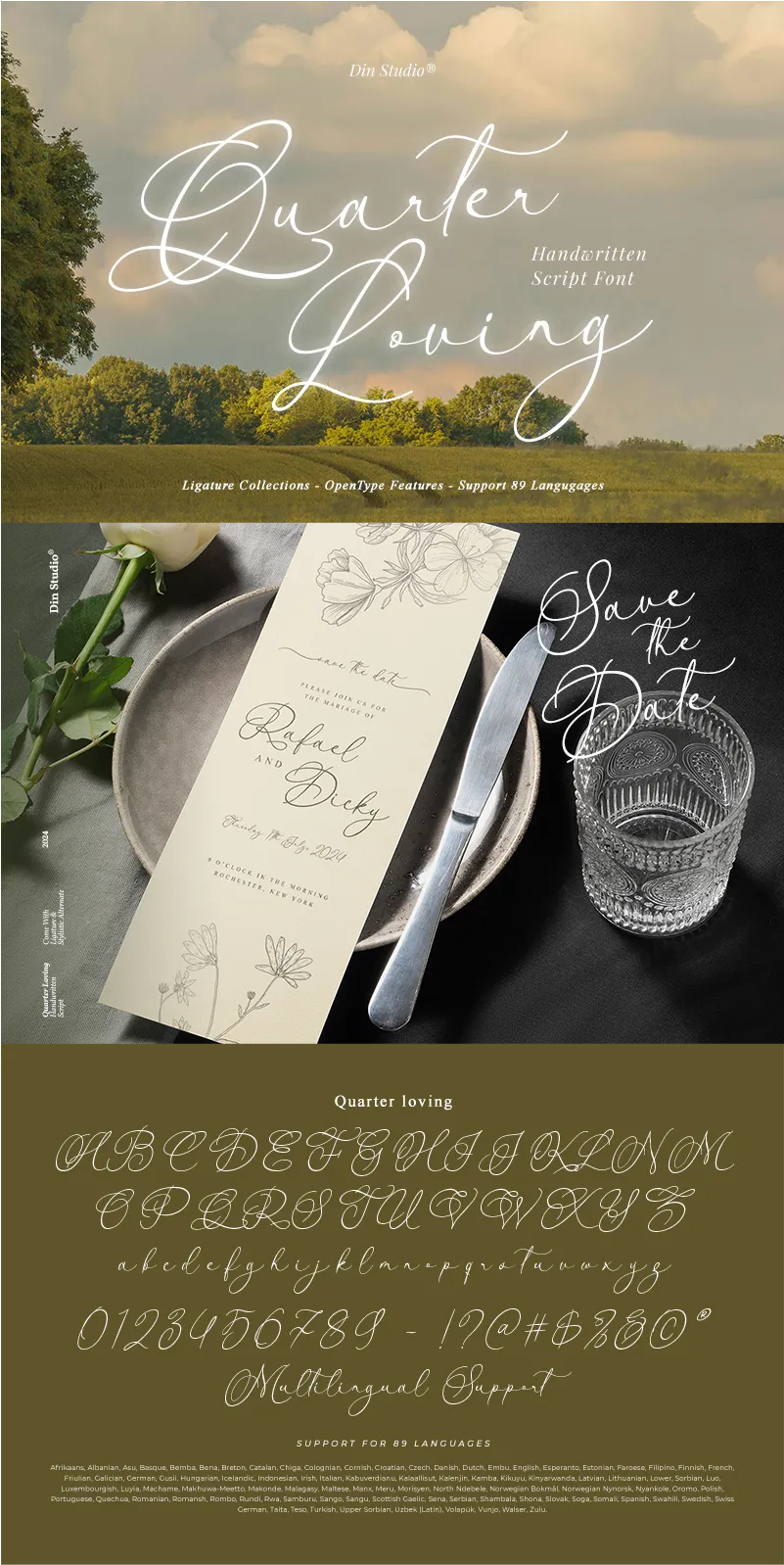
Quarter Loving Font
About Quarter Loving
Quarter Loving is a whimsical handwritten font that infuses your designs with charm and character. With its thin weight and connected letters, this font flows beautifully, creating a seamless script. The inconsistent letter proportions and playful swinging ends give it a unique, lively appearance.
• Stylistic Sets